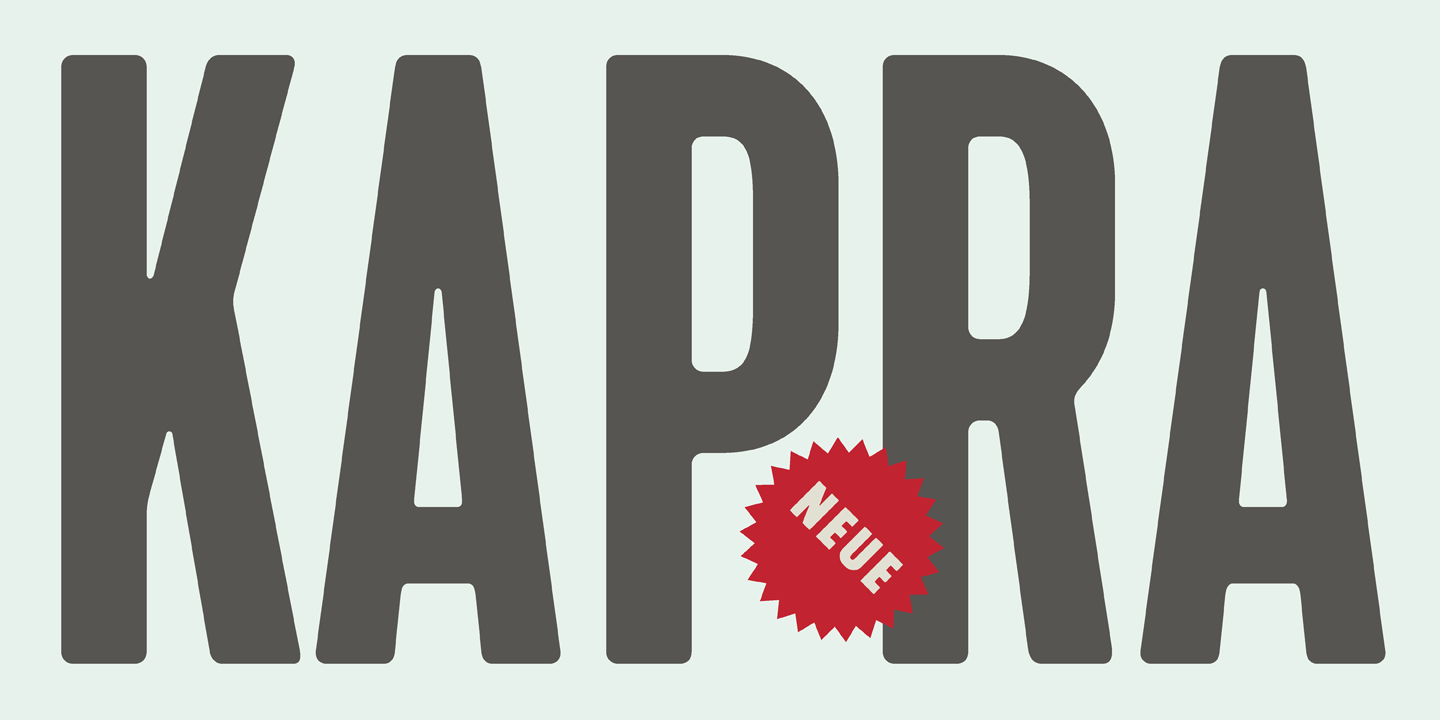
Kapra Neue Free Download
Kapra Neue Font Free Download
Kapra Neue Font is a sleek, contemporary sans-serif typeface designed for clarity and versatility. Ideal for branding, editorial design, web interfaces, and advertising, this font delivers a clean, minimalist aesthetic that enhances readability and modern appeal.
What makes Kapra Neue Font Free Download so exciting is its balanced structure and smooth curves, allowing designers to create professional and elegant typography suitable for a wide range of projects—from corporate identities to creative campaigns.
The Kapra Neue Font family typically includes multiple weights, from Light to Bold, along with italic versions, giving designers the flexibility to build dynamic and harmonious typographic layouts.
Whether you’re working on a sleek website, polished presentations, or stylish marketing materials, Kapra Neue Font Free Download provides the clarity and sophistication needed to make your design truly stand out.